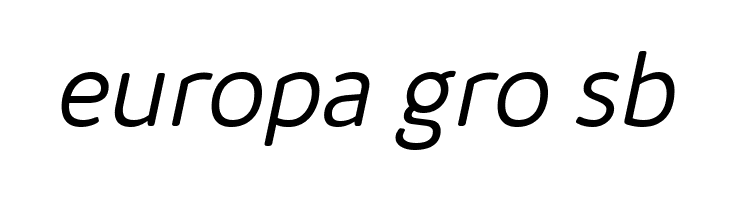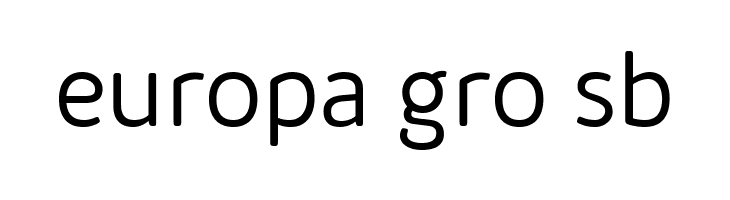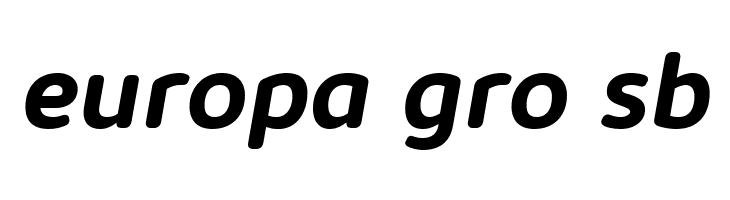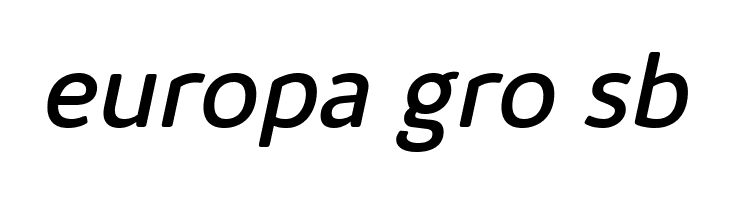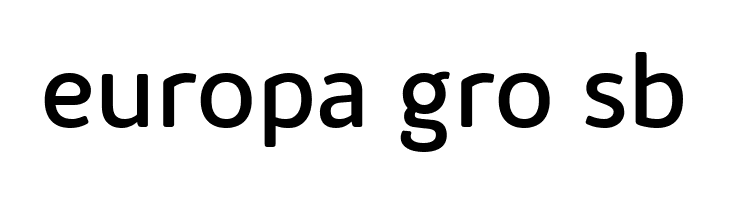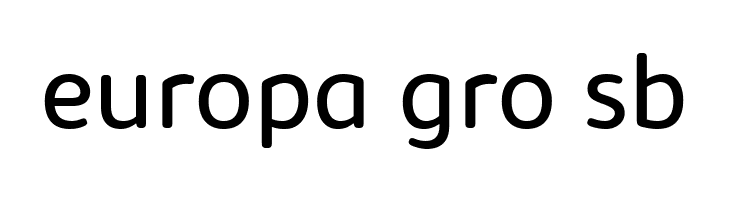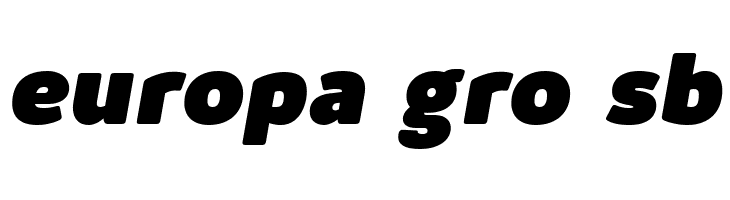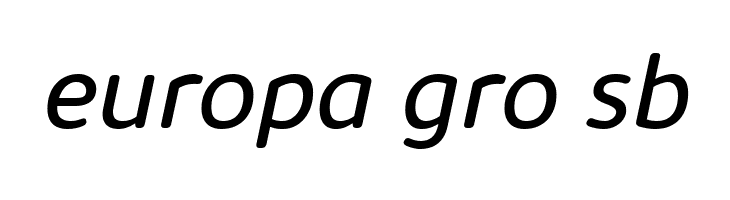
A bold, heavy italic font with a dynamic and modern style.
A sleek, modern italic font with smooth curves and consistent stroke width.
A modern, light sans-serif font with smooth curves and balanced spacing.
A sleek, modern sans-serif font with a light, italic style.
A modern, clean sans-serif font with smooth curves and uniform strokes.
A bold, rounded sans-serif font with a modern and friendly appearance.
A bold, italicized font with smooth, rounded edges and a modern, friendly style.
A modern, rounded typeface with smooth curves and uniform stroke width.
A modern, italic font with clean lines and balanced proportions.
A bold, rounded font with a modern and friendly style.